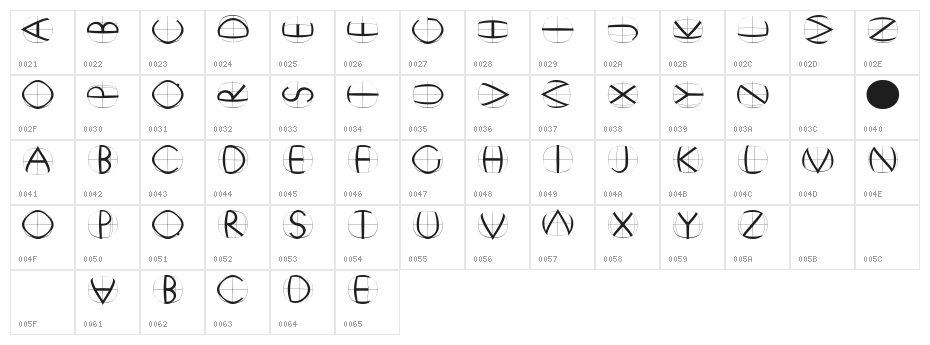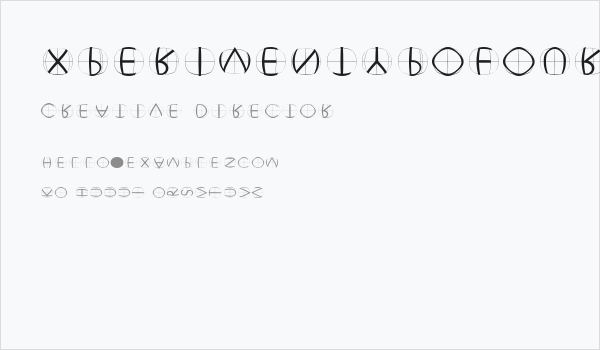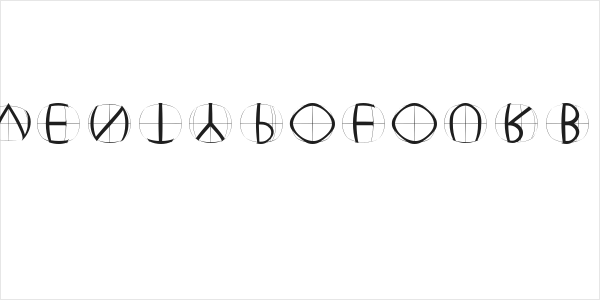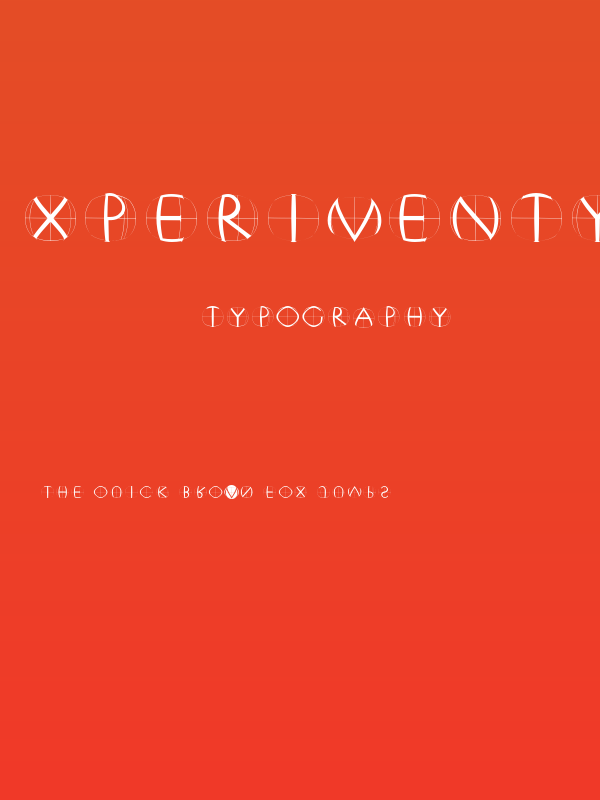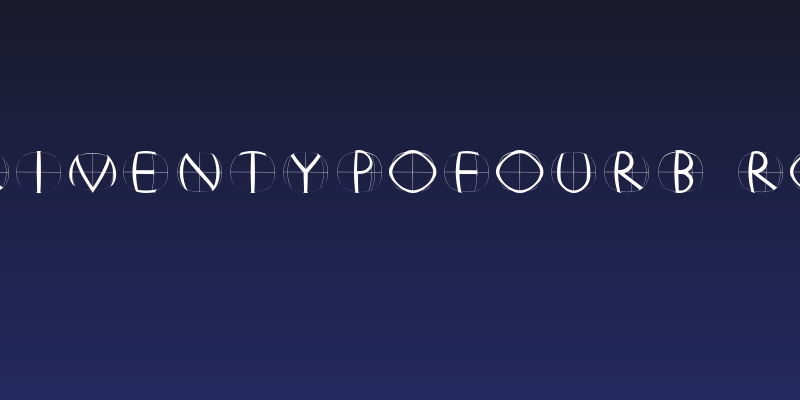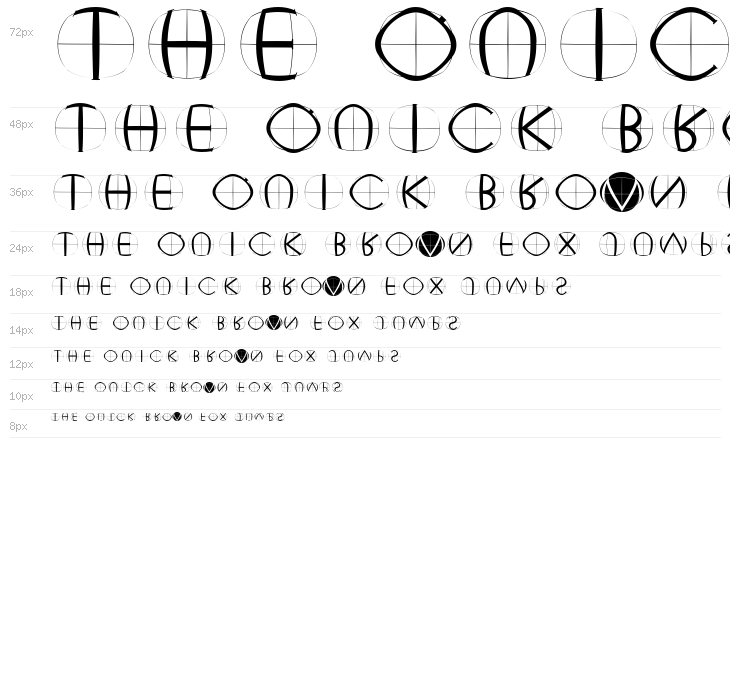
XperimentypoFourB Round Font
XperimentypoFourB Round Description
This font features a unique and experimental design, characterized by its circular geometric forms that intersect with bold, angular lines. Each character is enclosed within a circle, creating a futuristic and abstract appearance. The strokes are thick and consistent, providing a strong visual impact. The font's design is highly decorative, making it suitable for creative and artistic projects. Its distinct style is both modern and avant-garde, offering a fresh take on traditional letterforms.
| Use Case | Logos, Headlines, Artistic displays |
| Proposed Projects | Ideal for sci-fi themed designs, modern art projects, innovative branding, and experimental digital media. |